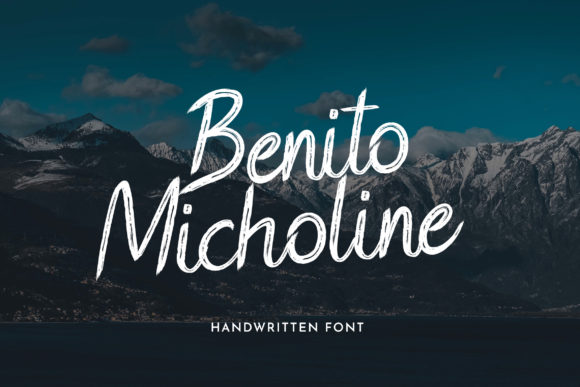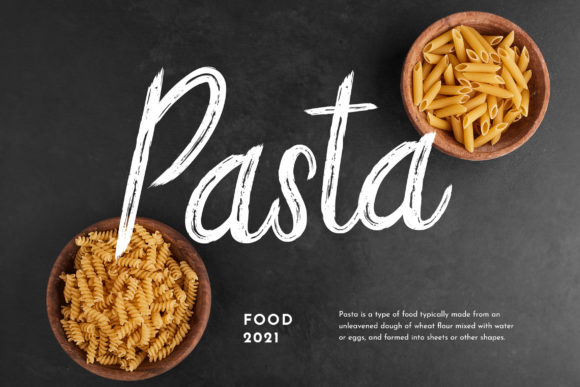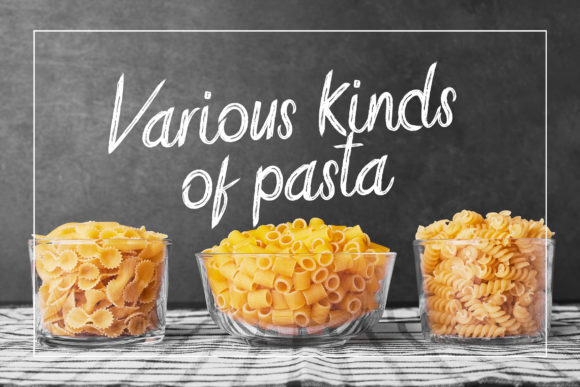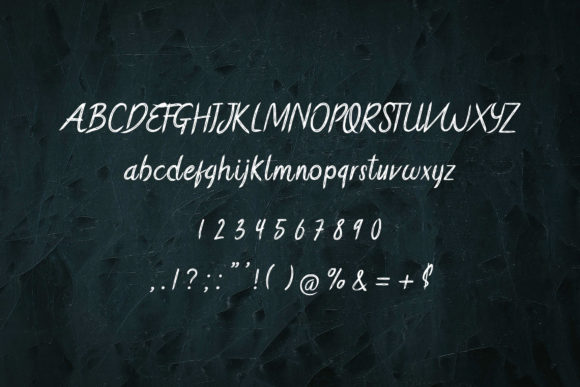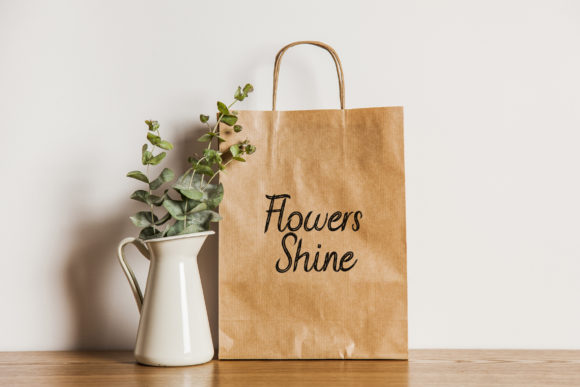
Benito Micholine Font
About Benito Micholine Font
Benito Micholine is a cursive brushed script font. It is defined by smooth curves and is perfect for fashion branding or editorial designs. Add it confidently to your projects, and you will love the results.